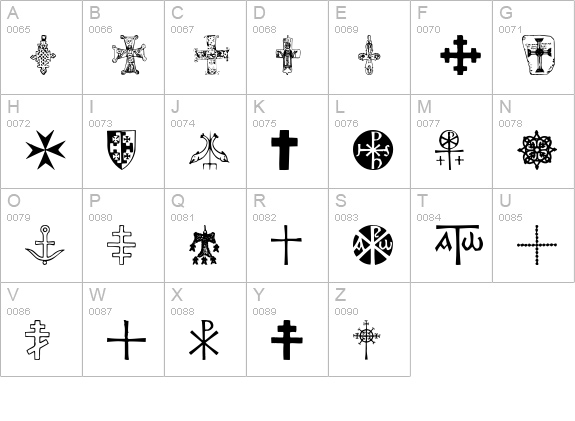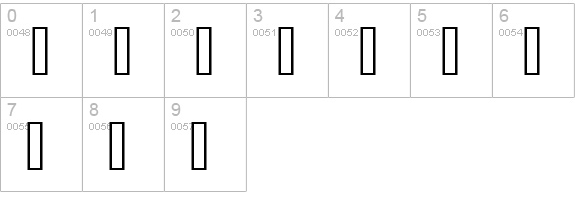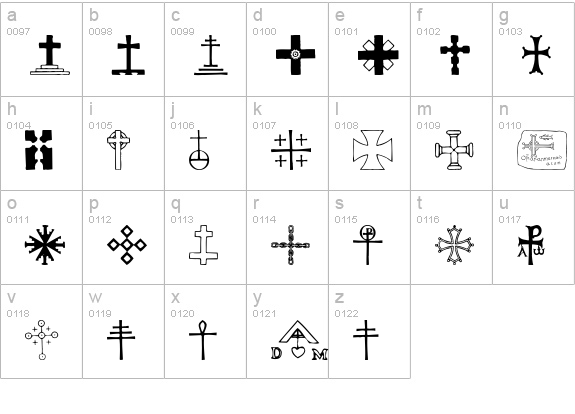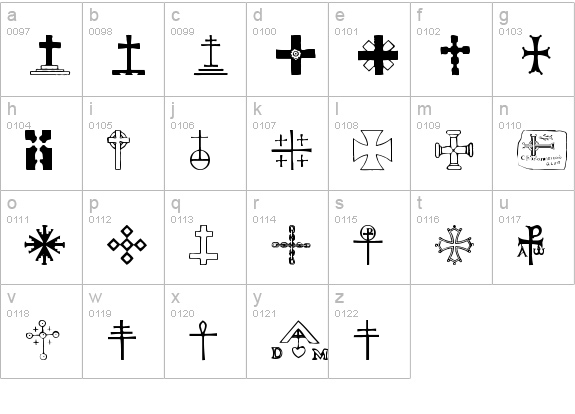
Crosses Font Details
The Crosses font is a visually striking and elegant typeface that adds a touch of sophistication to any design project. Its unique design features carefully crafted crosses within each letter, creating a sense of religious and spiritual significance. This font is perfect for creating eye-catching headlines, branding materials, invitations, and more. What sets the Crosses font apart is not just its aesthetic appeal, but also the fact that it is available for free download at FontsMarket.com. This means that designers and creatives can easily access and use this beautiful font in their projects without any cost. Whether you are working on a personal or commercial project, the Crosses font offers a versatile and stylish option that is sure to make a statement. With its timeless design and easy accessibility, the Crosses font is a must-have addition to any designer's toolkit. Download it today from FontsMarket.com and elevate your designs with this stunning typeface.